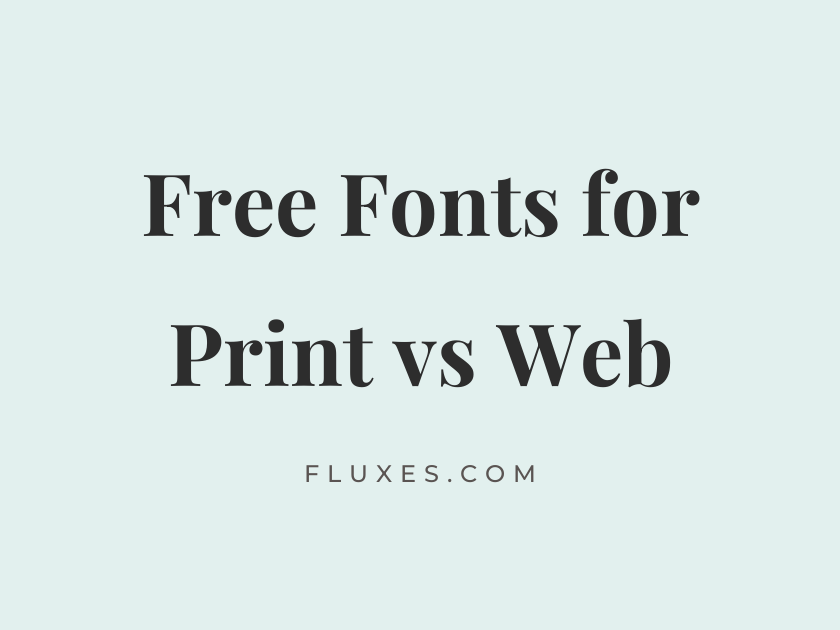
16 Best Free Fonts for Print vs Web
Typography behaves differently depending on where it lands. A serif with delicate hairlines might look stunning on a printed page and turn faint or muddy on a low-resolution screen, while a font built for crisp web rendering can feel flat and generic on paper. Picking the right free Google Fonts for print design versus digital interfaces means paying attention to x-height, stroke contrast, hinting, and how each face holds up at small sizes across different mediums.
• Print gives a font room to show off fine hairlines and high contrast because paper and ink can render detail that screens sometimes cannot.
• Web typography rewards taller x-heights, open counters, and simpler contrast so letters stay legible at 14 to 16 pixels.
When a brand needs one typeface for both a printed catalog and its website, look for families explicitly built or hinted for screen use, like Libre Baskerville, PT Serif, or Bitter. They tend to survive the jump between mediums with the least visual compromise.
For anything display-only, such as a book cover or a poster, feel free to reach for the more delicate print specimens like Playfair Display or Cormorant Garamond. Just pair them with a sturdier, screen-friendly sans or serif for the body text and interface elements.
Choosing between print and web typography is ultimately about matching a font’s structural habits to where it will actually be seen. Downloading a handful of these free Google Fonts and testing them at real sizes, on real paper and real screens, remains the fastest way to know which one earns a permanent spot in your toolkit.
1. Playfair Display
Elegant headlines for print and glossy pages
Playfair Display was built for print-style drama, with sharp contrast between thick and thin strokes that recalls fine letterpress invitations and fashion editorials. That same contrast is exactly what makes it risky at small sizes on screen, where thin hairlines can flicker or disappear on lower-resolution displays. Reserve it for headlines, posters, and print layouts where its theatrical curves have room to breathe.
2. EB Garamond
Set in ink, meant to be read slowly
Rooted in the sixteenth-century types of Claude Garamont, this face carries the warmth and rhythm of traditional book typography. It reads beautifully in long-form print work like novels, magazines, and annual reports, though its restrained x-height can feel a touch small on web body text unless you bump up the size.
3. Libre Baskerville
Designed to stay legible in print and pixels
Unusually for a classic-revival serif, Libre Baskerville was specifically optimized for on-screen reading, with a larger x-height and tighter line spacing than the original Baskerville. That makes it one of the rare fonts that genuinely bridges the print-versus-web divide, working equally well in a printed brochure and a blog’s body copy.
4. Lora
A serif with roots in calligraphy and print
Lora has gentle, brushed curves that hint at its calligraphic origins, giving it warmth without tipping into decorative territory. It performs well in both mediums, though it leans slightly more polished in print applications like editorial layouts and slightly more workmanlike in web paragraphs and articles.
5. PT Serif
Built for newspapers, comfortable on any screen
Commissioned as part of a public type project for Russian typography, PT Serif was engineered from the outset for both print and digital use, with sturdy strokes that hold up in newsprint and on low-DPI monitors alike. It is a dependable, unglamorous choice for anyone who needs a serif that simply works everywhere.
6. Cormorant Garamond
Delicate lettering for invitations and title pages
This is a font for print moments that call for refinement: wedding stationery, book title pages, perfume packaging. Its thin, jewel-like strokes lose definition fast at small screen sizes, so keep it for display type rather than paragraphs of web copy.
7. Source Serif 4
An editorial serif that adapts to any medium
Designed as the serif counterpart to Adobe’s Source Sans, this face was built with screen rendering in mind from day one, yet it retains enough print sensibility to anchor a magazine spread. It pairs naturally with its sans sibling for a system that spans both print and web without a jarring style shift.
8. Bitter
A slab serif sturdy enough for headlines and body
Bitter’s slab feet give it a confident, grounded presence on posters and printed branding, and it happens to hold its shape just as well in a web article at 16 pixels. It is a good pick when a project needs one serif to cover both a print flyer and its digital counterpart.
9. Inter
Interface type tuned for every pixel
Inter was built specifically for user interfaces and screens, with a tall x-height and neutral shapes that stay crisp at tiny sizes in apps and dashboards. It is far less interesting in print, where its clinical, almost invisible personality can read as generic next to a proper text serif.
16. Noto Sans
Reliable type for global print and digital projects
Google built Noto to cover virtually every script on earth, which makes it an unusually safe choice for multilingual projects that need consistent typography in both printed materials and websites. It is not a font chosen for personality; it is chosen for the certainty that it will render correctly everywhere.